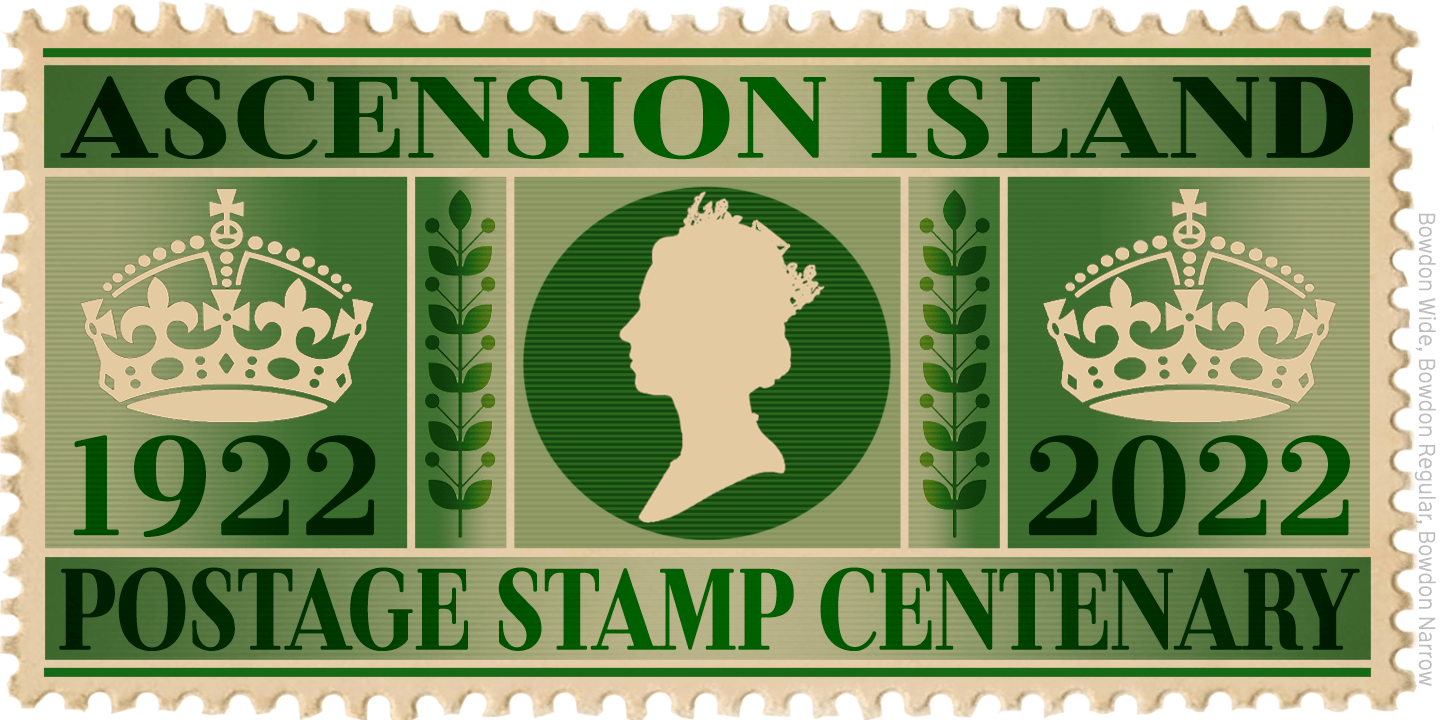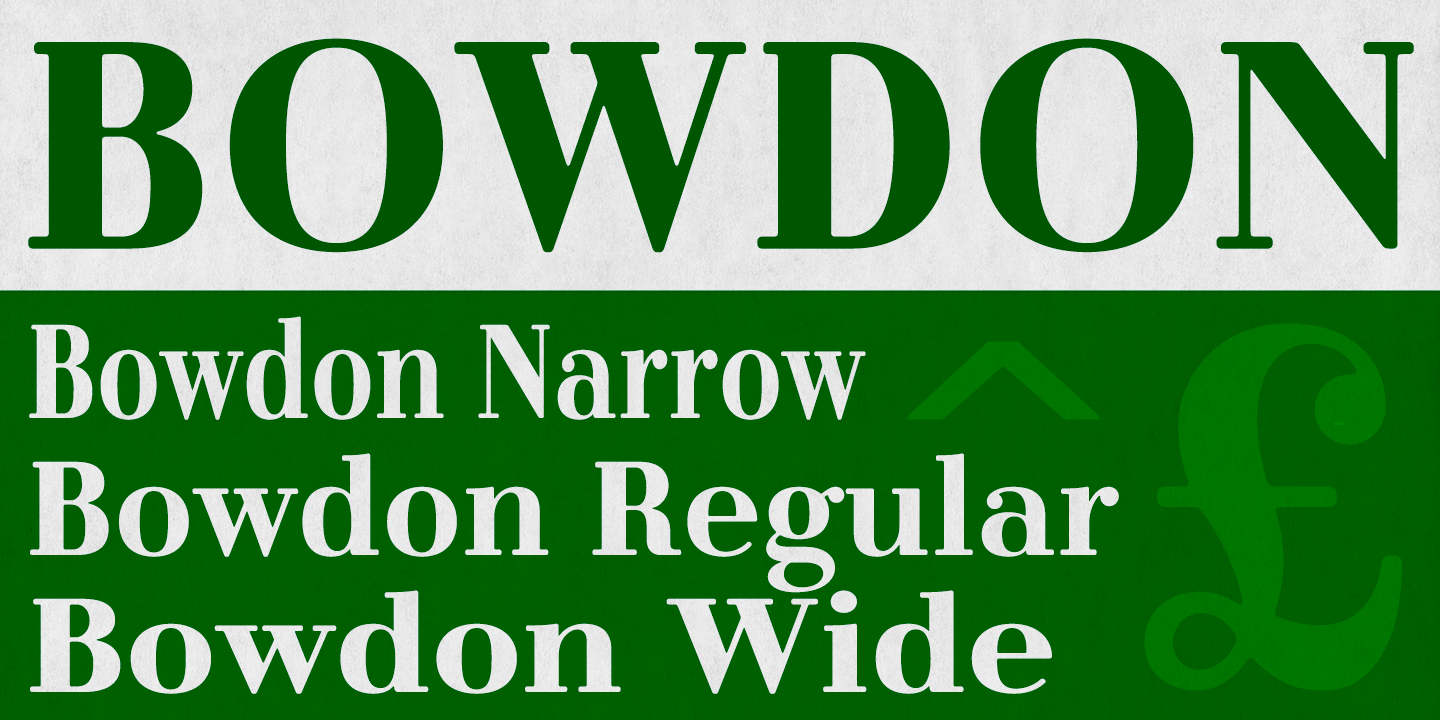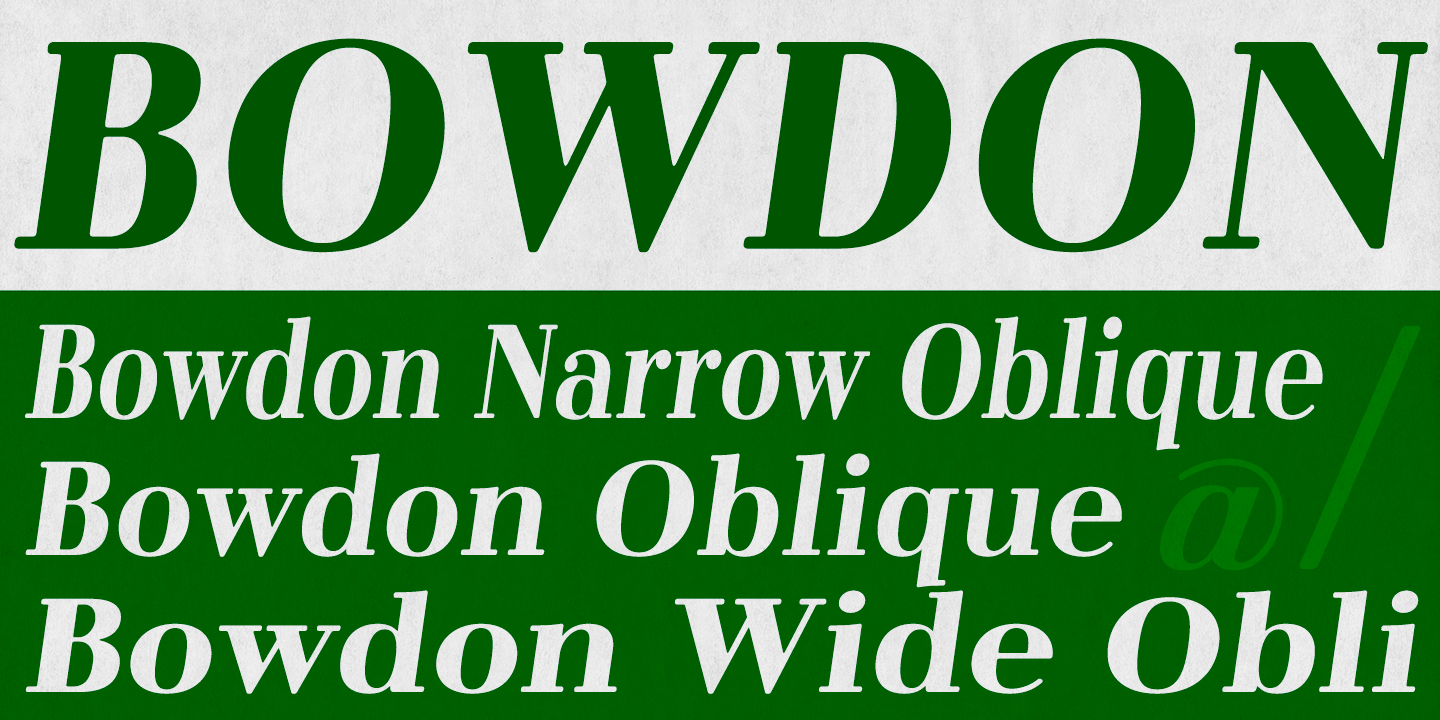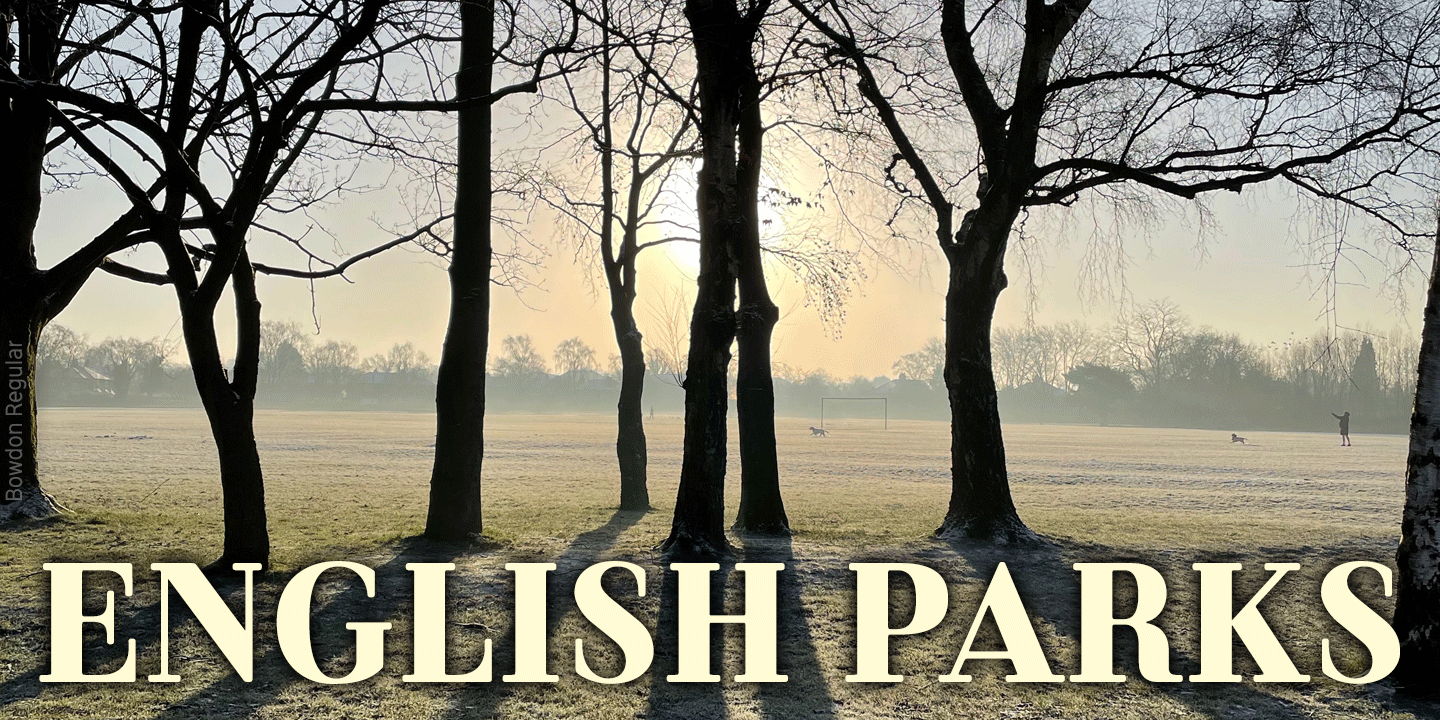
About Bowdon
Bowdon is a warm, Bodoni-inspired English Modern, influenced by the 1930s lettering of designer Barnett Freedman. Slightly rounded corners give characters a printed-look softness, and hairlines are thickened a little to increase legibility at smaller…